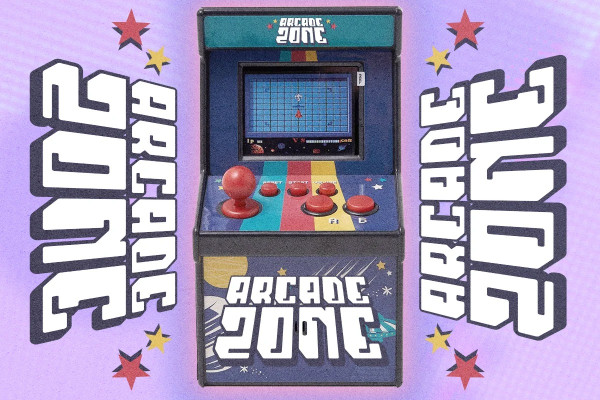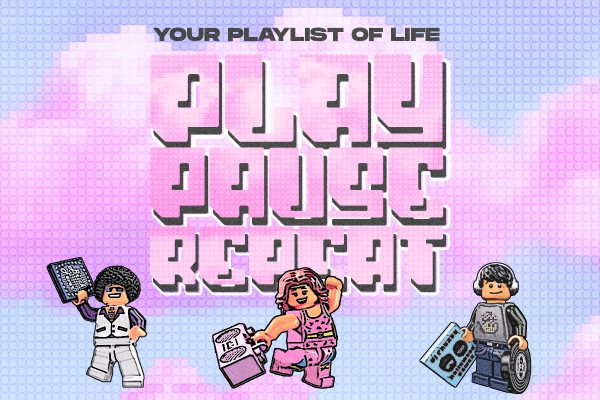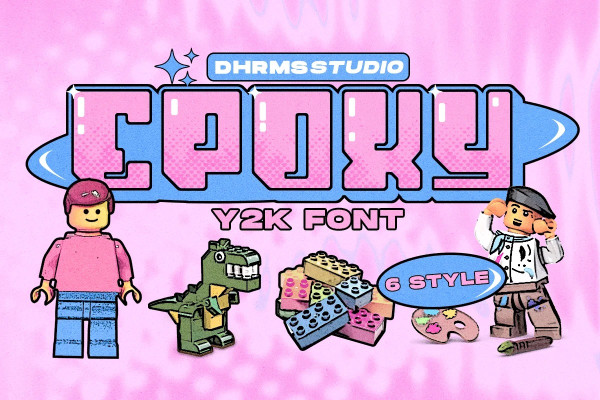
Epoxy Font
EPOXY Font – A font that exudes the playful and iconic vibes of the y2k era, inspired by the beloved Barbie cartoon style, where all hues are dipped in pretty pink. With 6 captivating styles for each type – Regular, Italic, Outline, Extrude, Outline Italic, and Extrude Italic – EPOXY brings the nostalgia of the 00’s back to life.
Step into a world filled with the charm of the past, as the Docs, Game Boys, and Cartoons take center stage once more. The 00’s are making a glorious comeback, and “EPOXY Font” is your perfect companion to embrace the vibrant and joyous essence of that era.